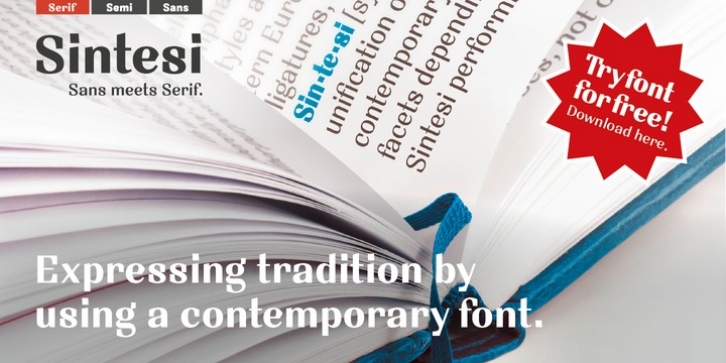
Sans meets serif.
You would like to express tradition by using a contemporary font? Sintesi might be exactly what you are looking for.
Sintesi stands for synthesis: the unification of serif and sans-serif into a contemporary font, which surprises with different facets depending on its application.
In copy size Sintesi performs like a sans-serif. It is a compact and well readable font that fulfills all requirements of modern digital media.
In larger sizes, Sintesi unfolds its traditional character. Now, its strong contrast and the perceptible feather-ductus stand out clearly, as we appreciate it in a historical old style face.
Sintesi is completed by a suitable italic. Its cursive character has more to do with writing-speed than to moderate inclination. Therefore Sintesi may be well-suited for many other purposes, not only for emphasis.
The whole font family consists of 20 styles and offers a wide range of Western and Eastern European special characters, typographical ligatures, uppercase, oldstyle and fraction figures.
Sintesi (Serif) builds together with Sintesi Semi and Sintesi Sans an extended family.
Start combining antiquity with modernity!